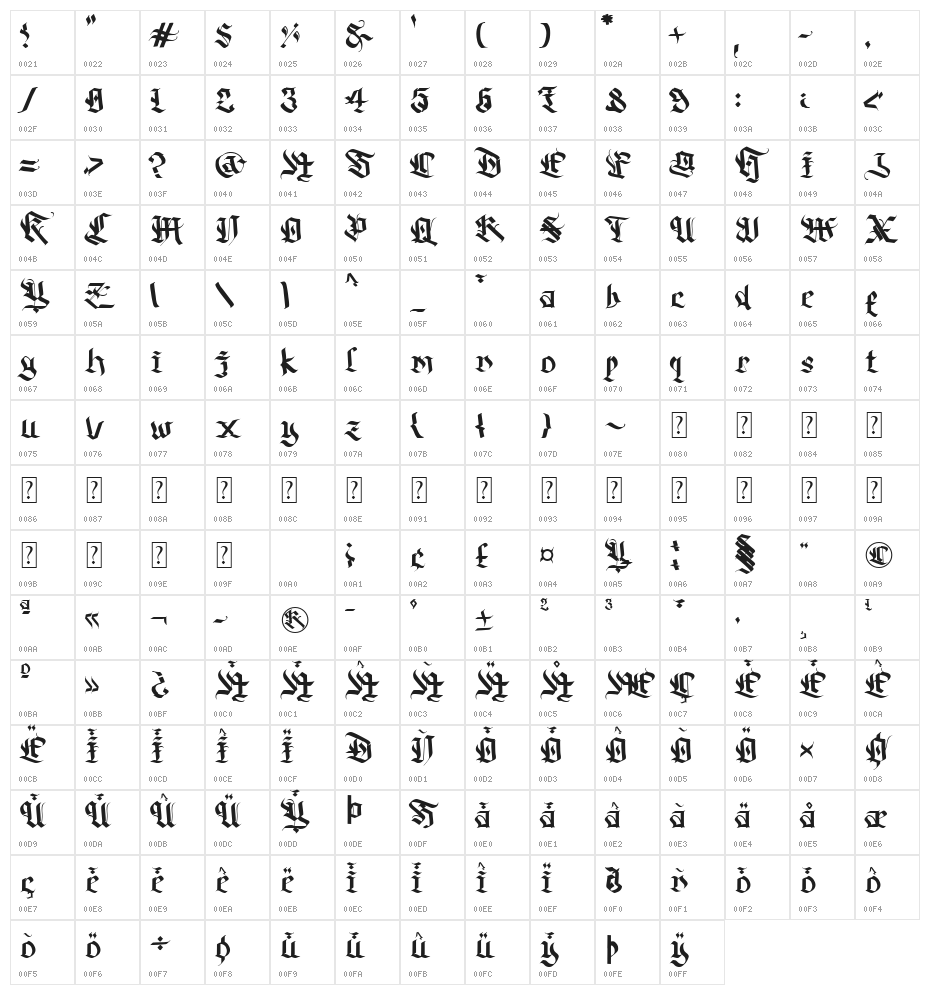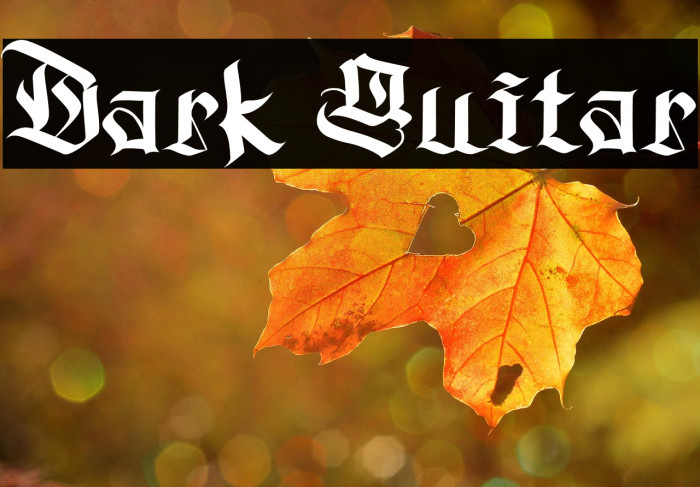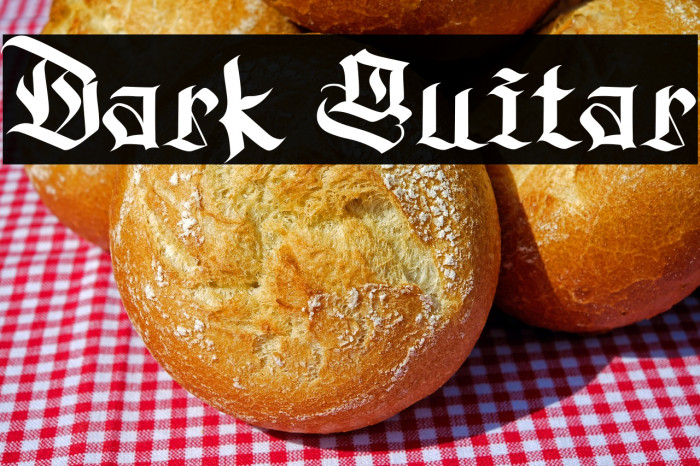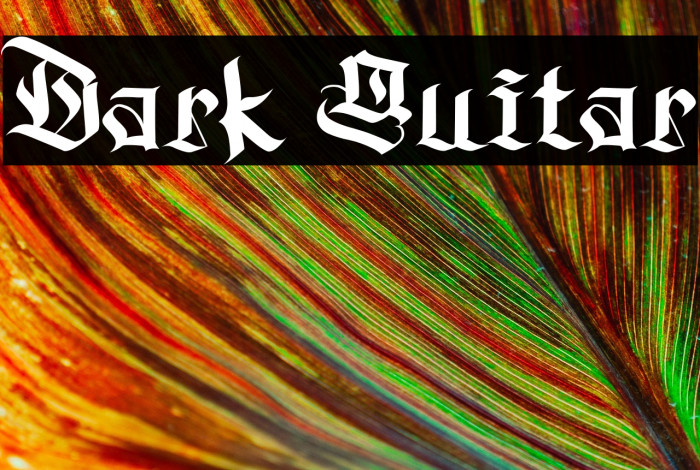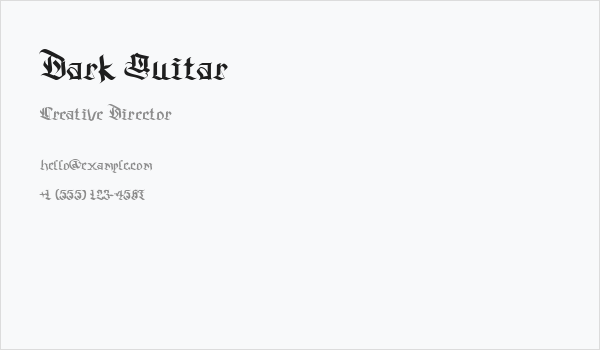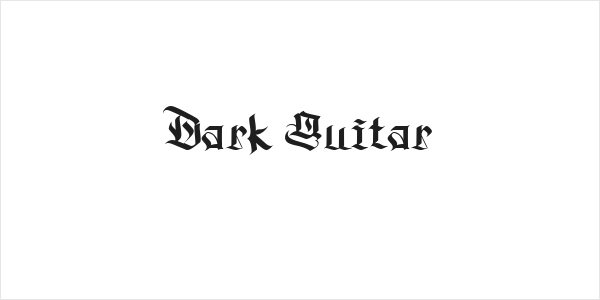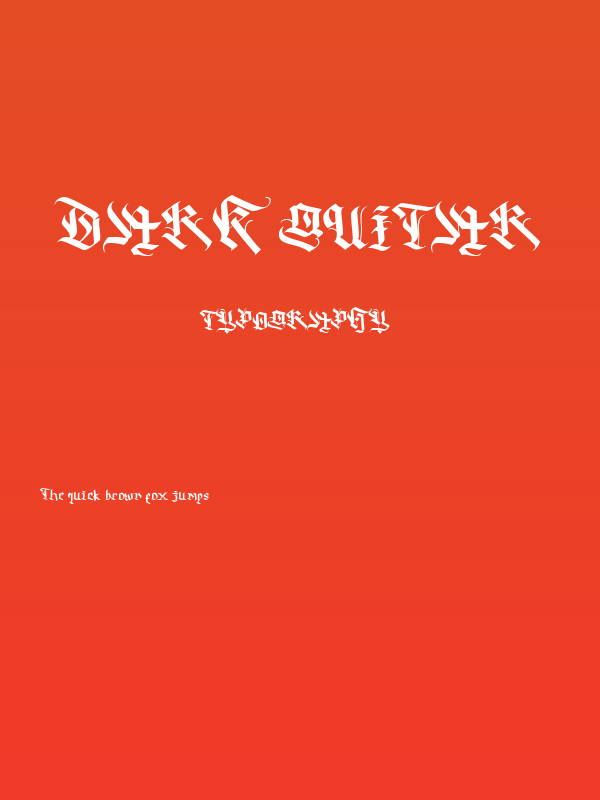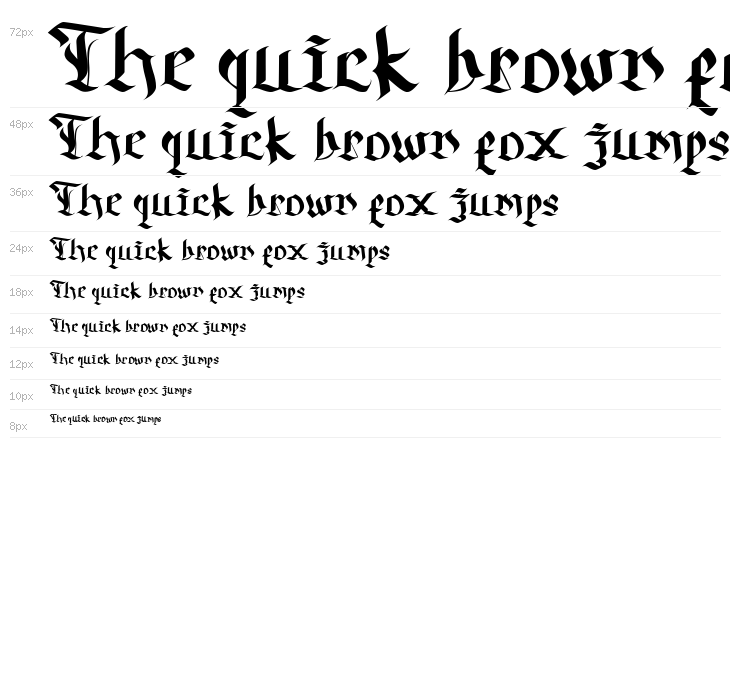
Dark Guitar Font
Dark Guitar Description
This font exhibits a bold and dramatic blackletter style, characterized by its intricate and angular letterforms. The strokes are thick and pronounced, with sharp edges and decorative elements that give it a gothic appearance. The uppercase and lowercase letters maintain a consistent style, with a strong emphasis on vertical lines and pointed serifs. The numerals and special characters are equally ornate, fitting seamlessly into the overall aesthetic. This font exudes a sense of tradition and history, reminiscent of medieval manuscripts and classic calligraphy.
| Overall Style | Gothic, Traditional |
| Use Case | Headlines, Logos, Decorative text |
| Proposed Projects | Ideal for projects requiring a historical or gothic theme, such as book covers, posters, or branding for music bands. |